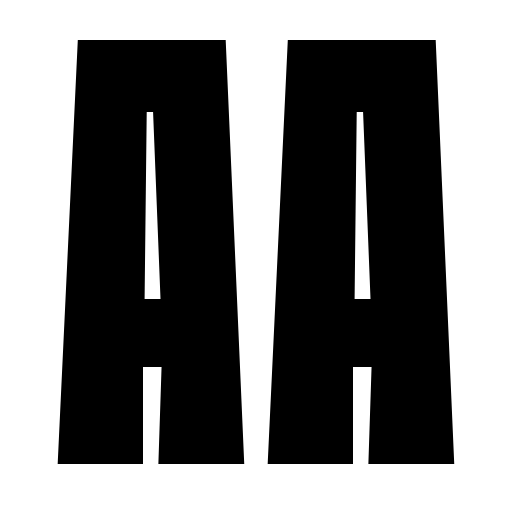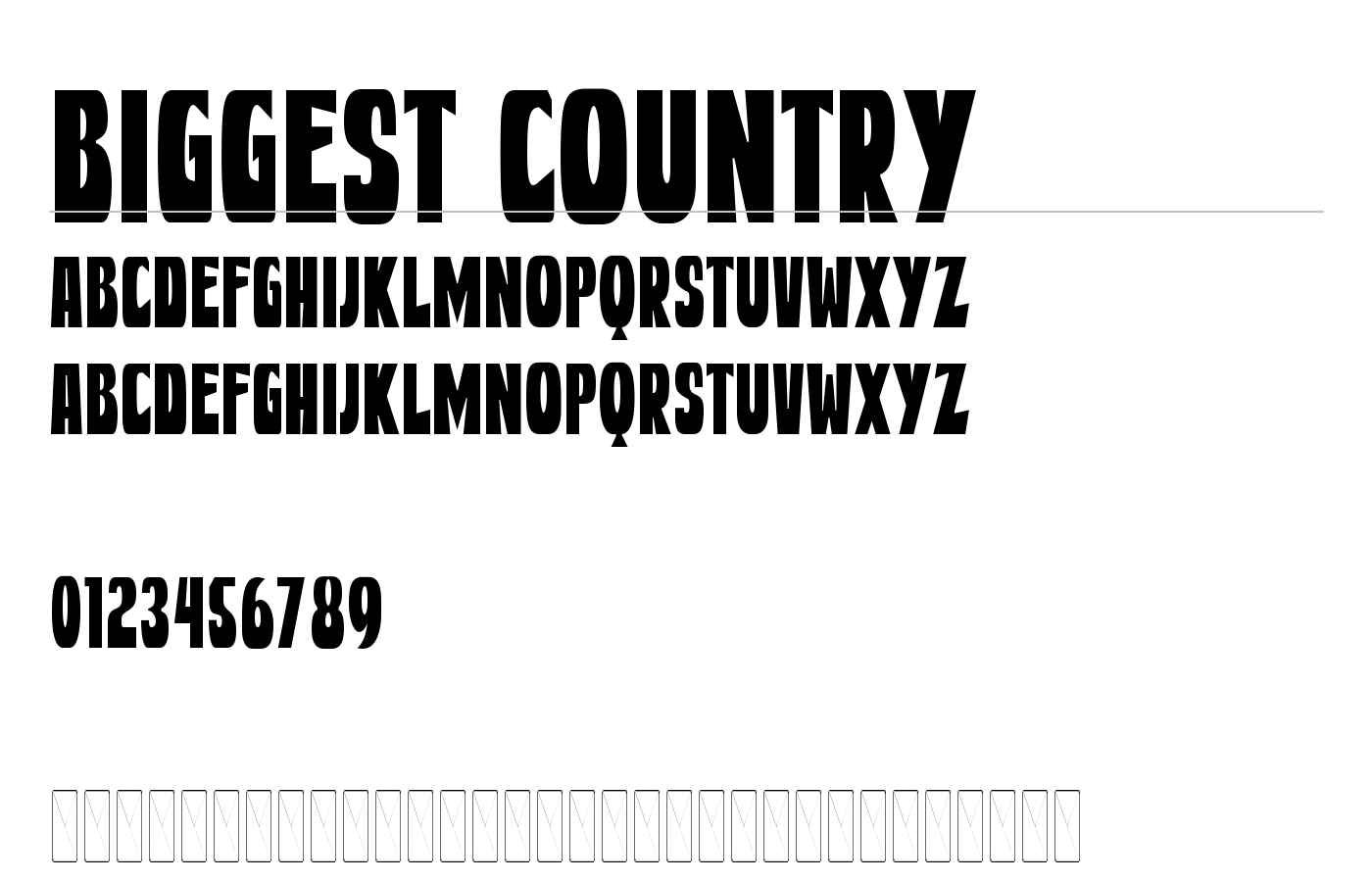
Biggest Country Font is a bold, condensed sans serif typeface with a strong, commanding presence. Its tall, tightly spaced letters and heavy weight make it ideal for headlines, posters, and branding that require impact and attention. This font's straightforward, no-nonsense style conveys strength and confidence, perfect for designs needing a powerful and assertive look.
Biggest Country Font
About Biggest Country Font